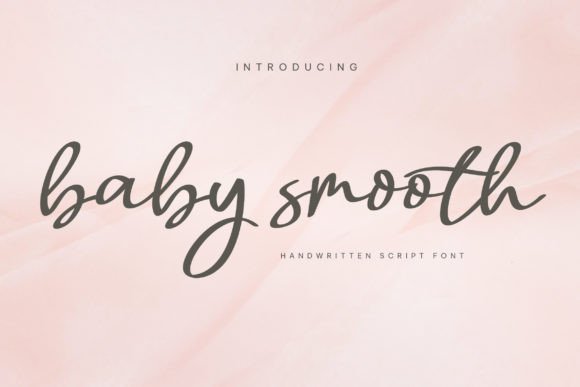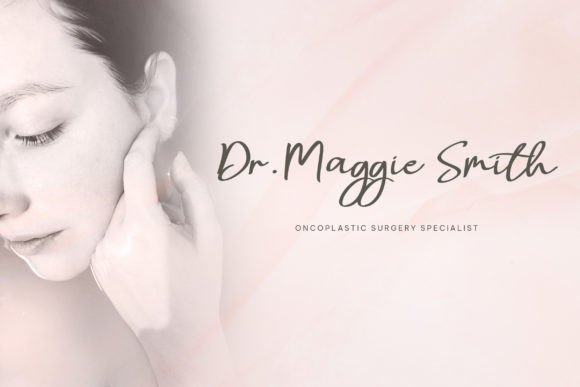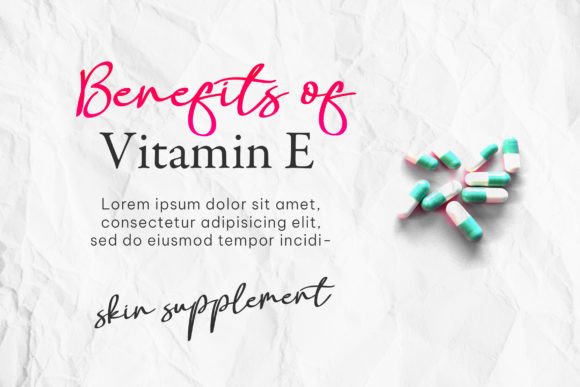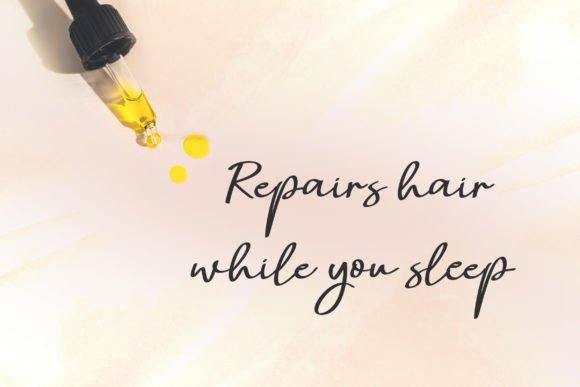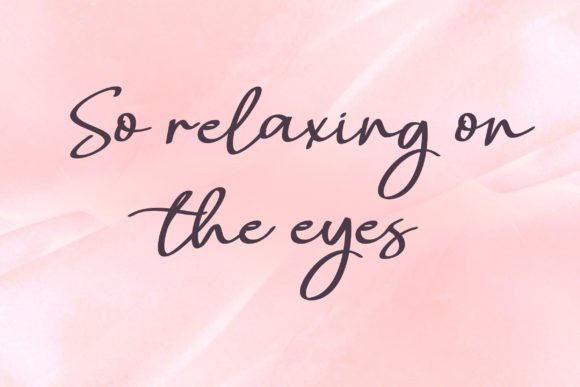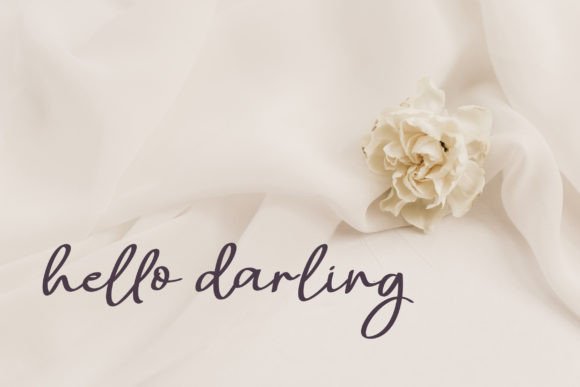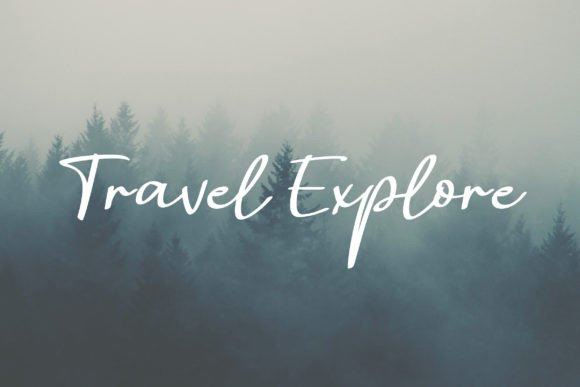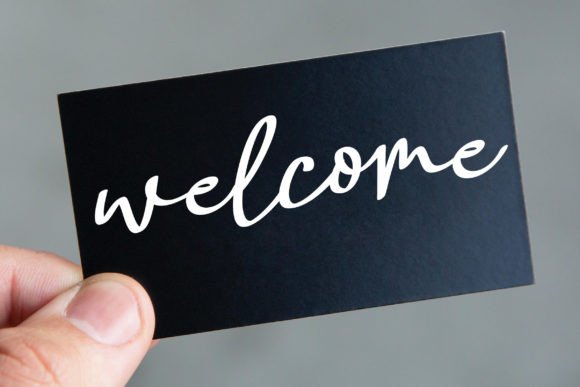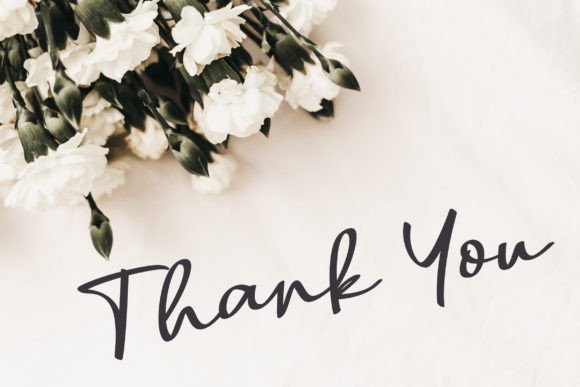
Baby Smooth Font
About Baby Smooth Font
Baby Smooth is a fresh, modern, stylish, and flowing handwritten script font. It has beautiful and well-balanced characters and as a result, it matches a wide pool of designs. Fall in love with its incredibly distinct and timeless style, and use it to create spectacular designs!